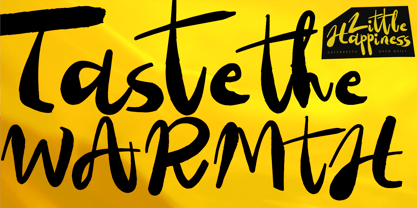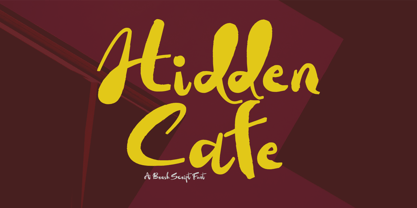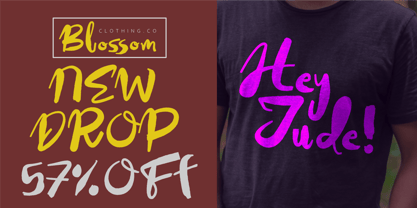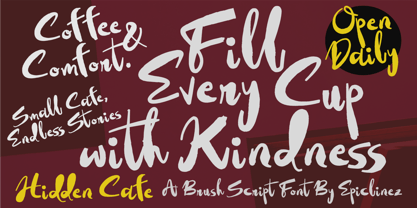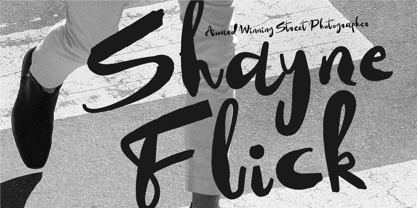
Hidden Cafe
The Hidden Cafe Font Family was designed by Aldy Sidik and published by Epiclinez. Hidden Cafe contains 1 styles. More about this family
Hidden Cafe is a warm and expressive brush script font inspired by cozy coffee shops, handcrafted signage, and relaxed café culture. Featuring natural brush strokes, smooth curves, and authentic handwritten details, Hidden Cafe brings a personal, inviting touch to every design. Its flowing characters and stylish ligatures create realistic handwritten lettering that feels both elegant and effortless.
Designed with versatility in mind, Hidden Cafe is perfect for logos, branding, café menus, restaurant signage, coffee packaging, bakery labels, product packaging, invitations, social media graphics, quotes, apparel, posters, greeting cards, wedding stationery, and handcrafted business branding. Whether you're creating a rustic coffee brand, a modern boutique identity, or eye-catching promotional materials, Hidden Cafe delivers a charming and memorable look.
Packed with beautiful ligatures and natural letter connections, Hidden Cafe helps you achieve professional typography with minimal effort. It works beautifully for both large display headlines and signature-style lettering, making it an excellent choice for creatives who want authentic brush lettering with a handcrafted personality.